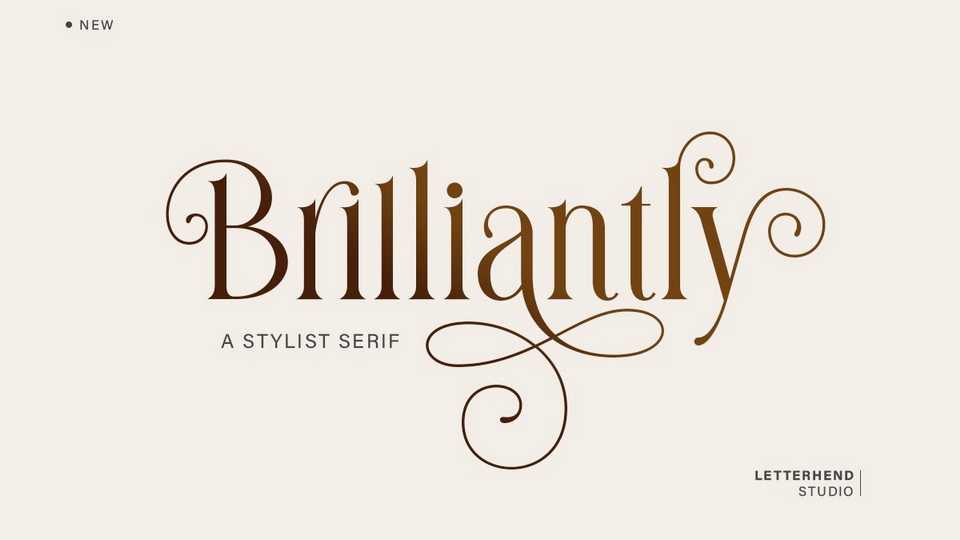
Download Brilliantly font, a stylish serif typeface with charming decorative elements. The clean and neat style of a serif combined with the swirl swashes makes Brilliantly one of a kind!